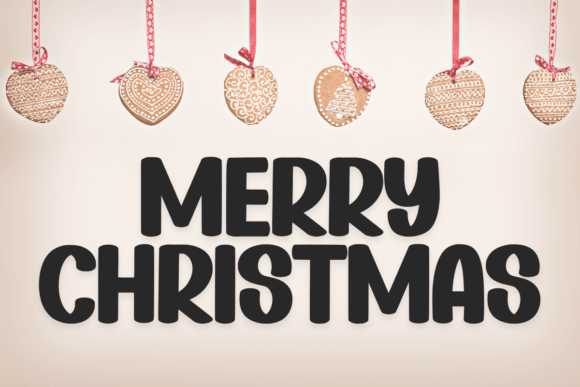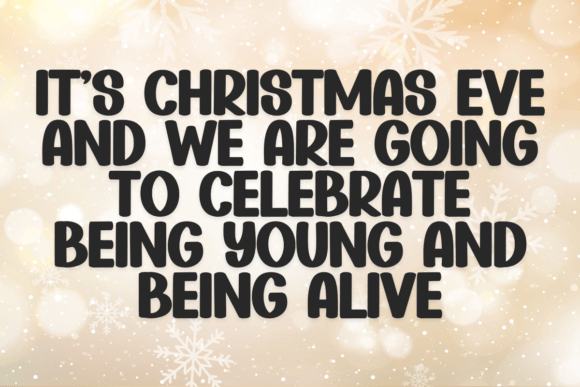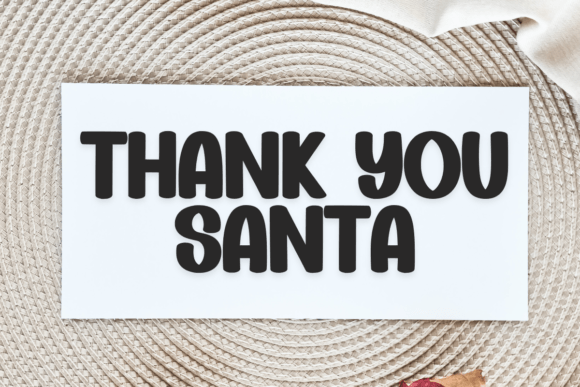
Christmas Grinchese Font
Christmas Grinchese is a clean and beautiful display font depicted with a touch of elegance, perfect for your favorite projects. Fall in love with its incredibly distinct and timeless style, and use it to create spectacular designs!